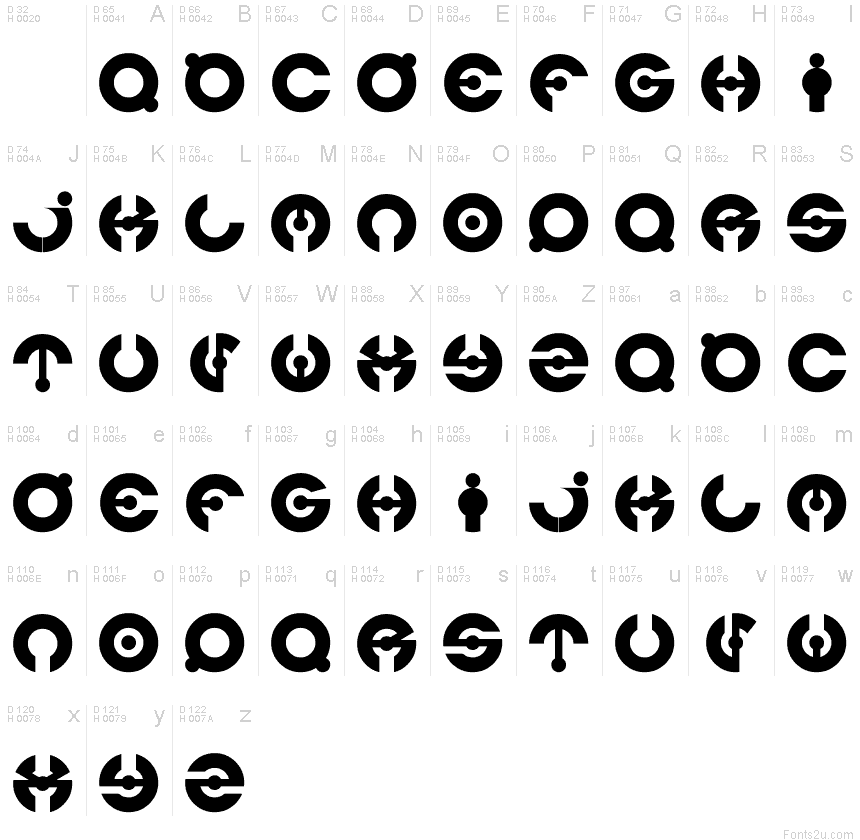
Glover is a free groovy display font built from broad circular forms and sharply cut geometric openings. Its letters resemble discs, dials, and machine parts, with repeated round centers and sliced sections that give the alphabet a playful retro-futurist look.
Packaging is a particularly good medium for these compact, emblem-like shapes, especially on music products, novelty goods, or drinks with a 1960s-inspired identity. The same mechanical circles can turn poster titles into part of the artwork, and they also suit record sleeves, arcade graphics, and entertainment branding centered on sound or motion.